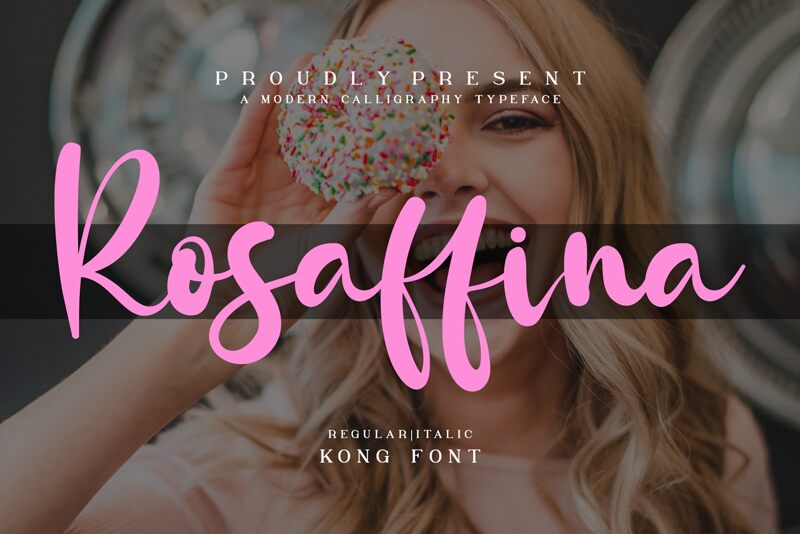
Rosaffina font family is an expressive calligraphy masterpiece created by Kong Font, consisting of 4 font styles. Embracing modern elegance, the font offers a lively and sophisticated touch to any design. It features flowing, warm, and inviting characters that inject life and personality into any setup they’re included in. Use this font family to make the most of those awesome attributes in your personal projects.
Give your projects some delightful visual drama, elevated fonts, and appealing aesthetics. Use the font in magazines, book covers, blog titles, apparel, social media accounts, postcards, gift cards, and posters. Make it further suit restaurant menus, event invitations, logotypography, video titles, and packaging.